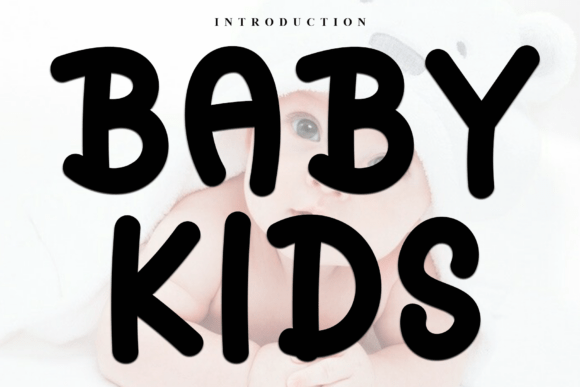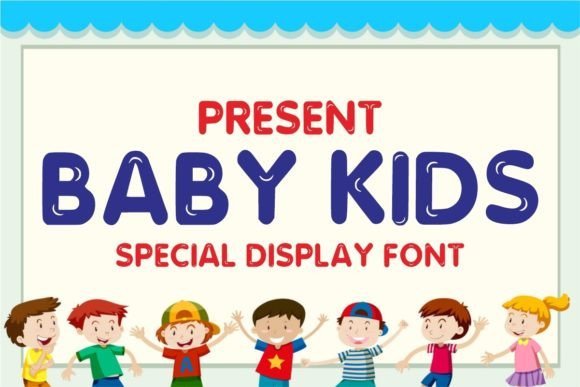
The Perfect Blend of Creativity and Character: Baby Kids Font Have you ever sat in front of your computer, staring at a blank screen, waiting for inspiration to strike? That’s exactly where I was when I stumbled upon the Baby Kids Font. Its unique strokes and soft touch instantly captured my attention, and I knew…